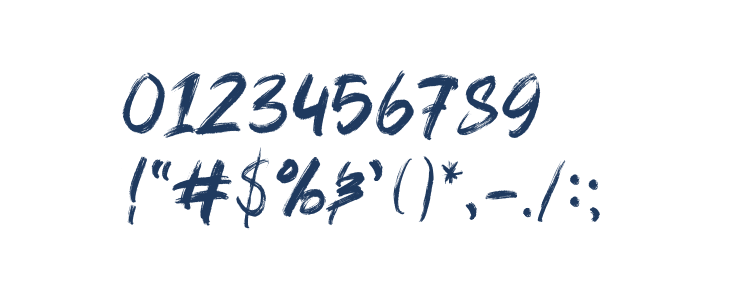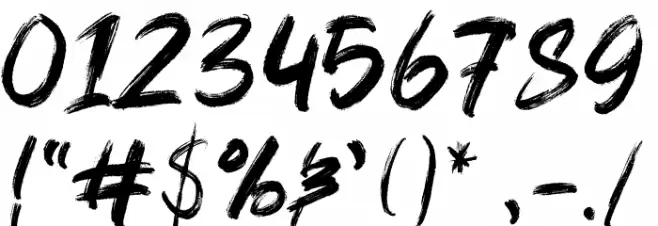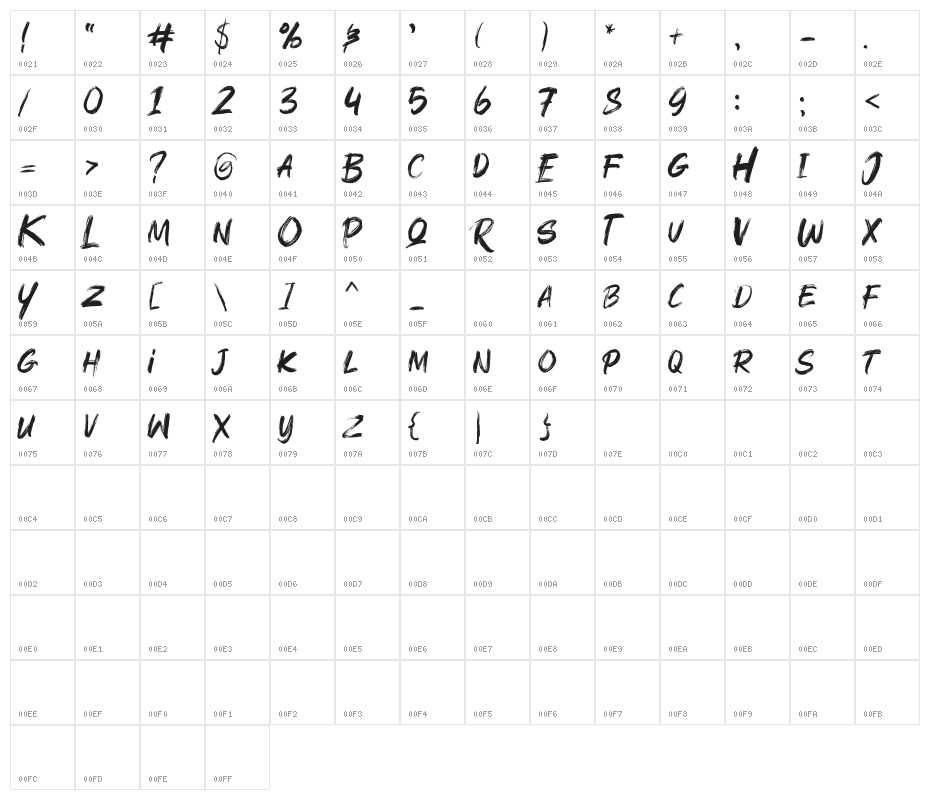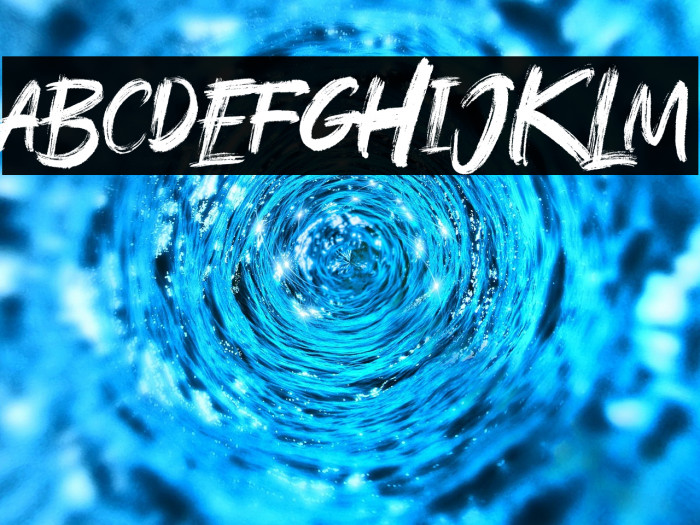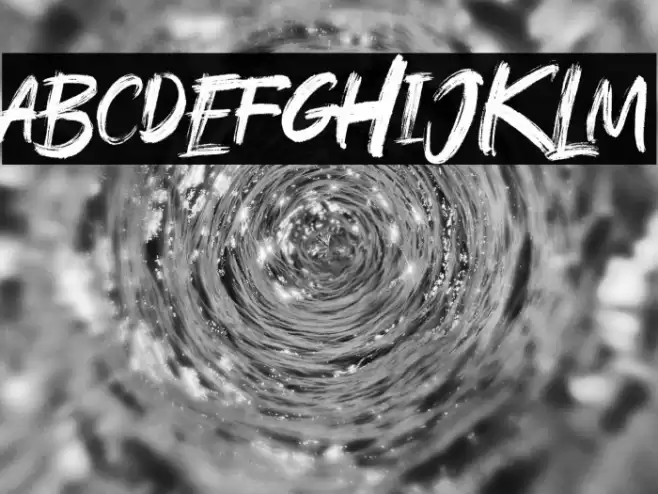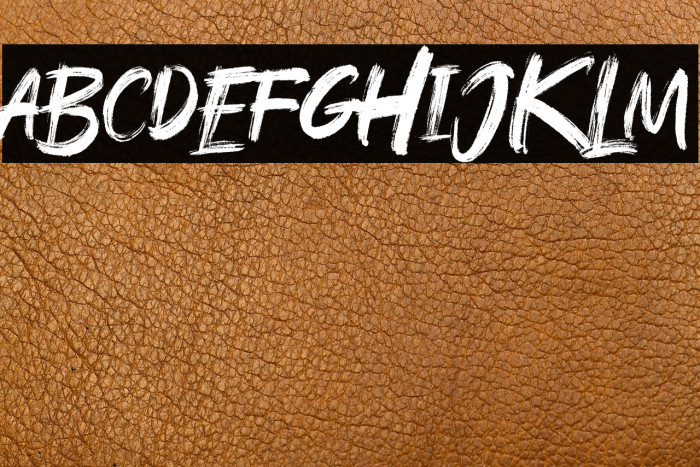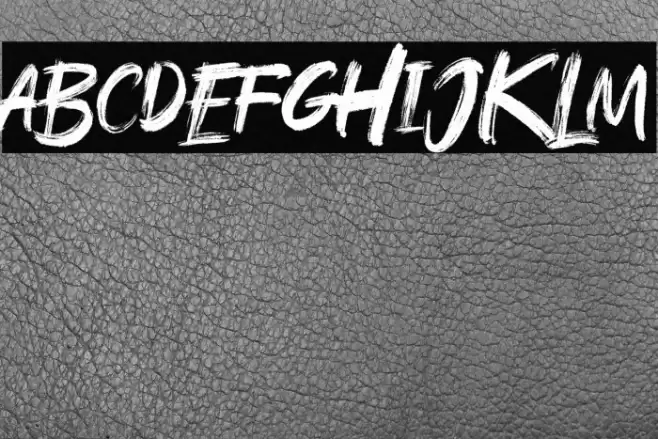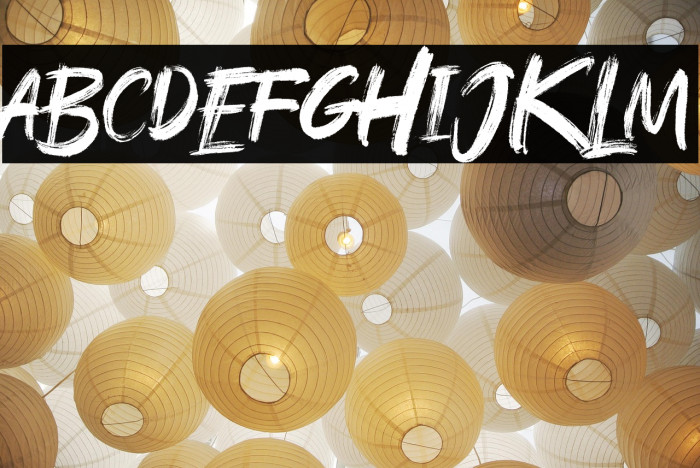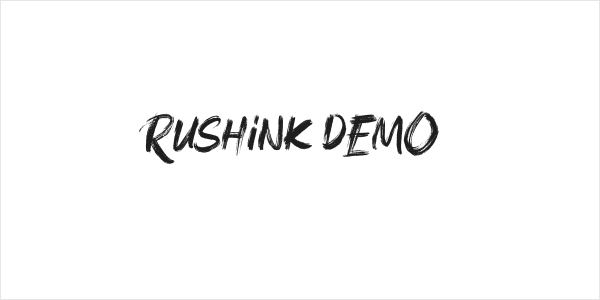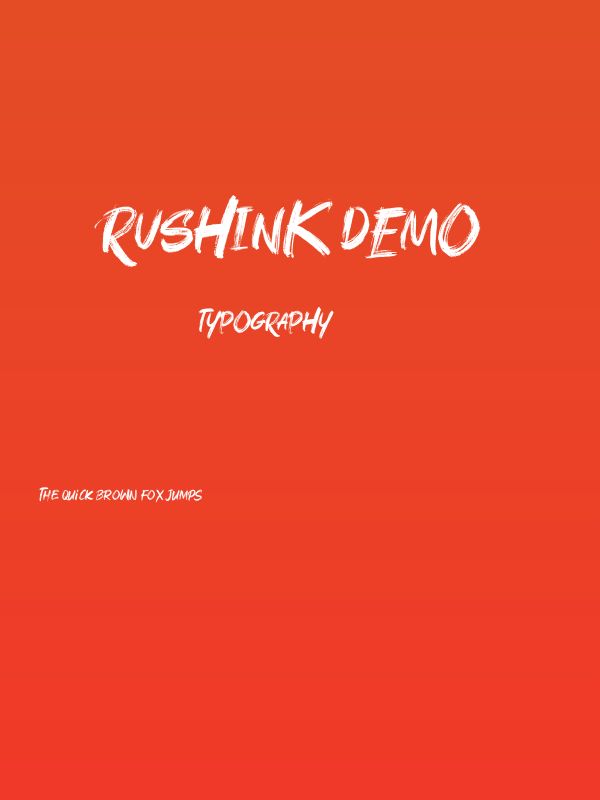
Rushink DEMO Font
Rushink DEMO Description
This font exudes a bold, energetic style with its brush-like strokes and dynamic presence. Each character is crafted with a sense of movement, giving it a hand-painted appearance that is both artistic and expressive. The uppercase and lowercase letters maintain a consistent flow, while the numbers and special characters complement the overall aesthetic. The rough edges and varying stroke widths add a raw, authentic feel, making it ideal for projects that require a touch of creativity and flair.
Proposed ProjectsIdeal for artistic projects, branding, posters, and any design needing a bold, creative touch.